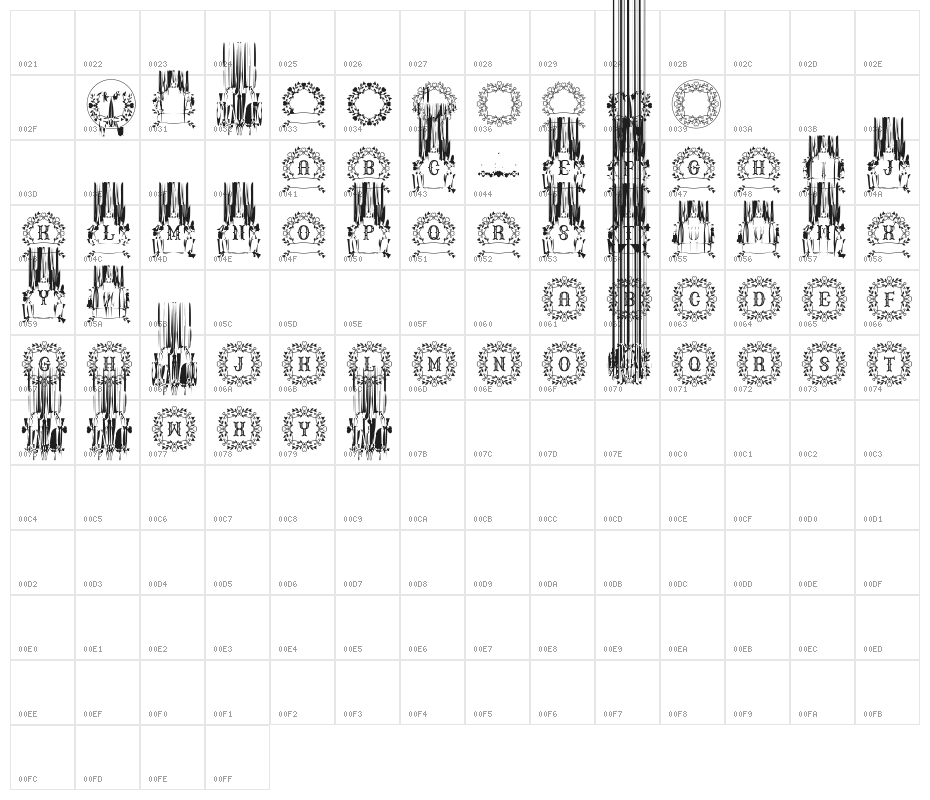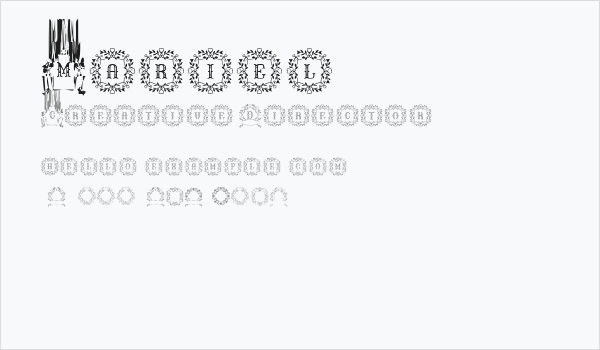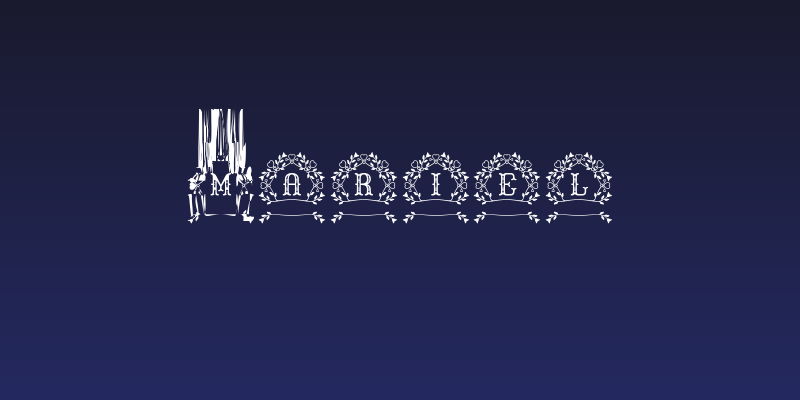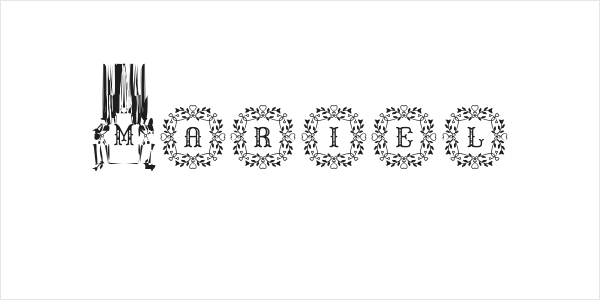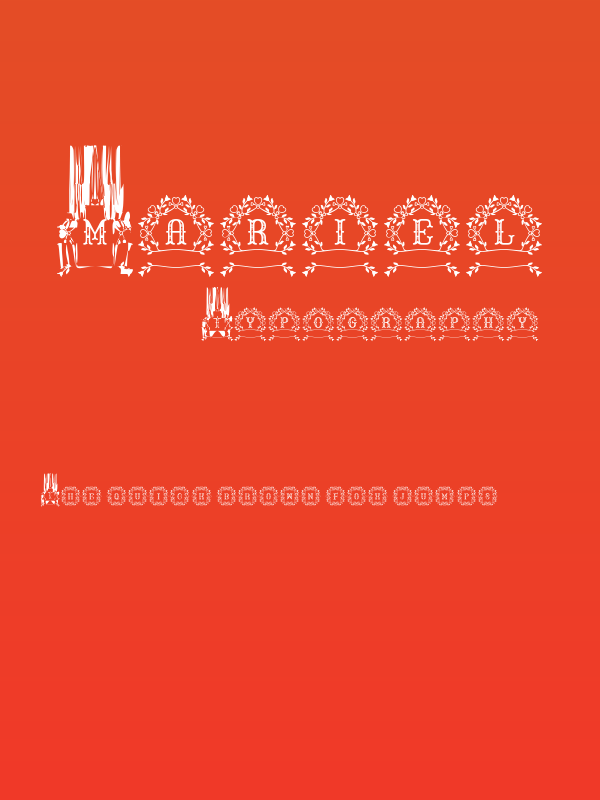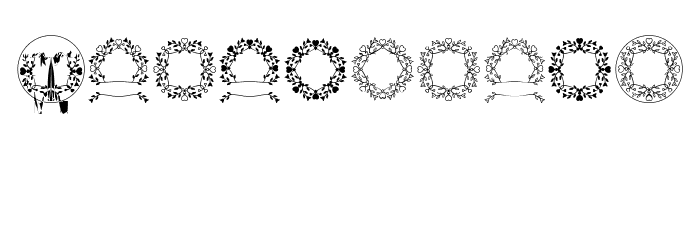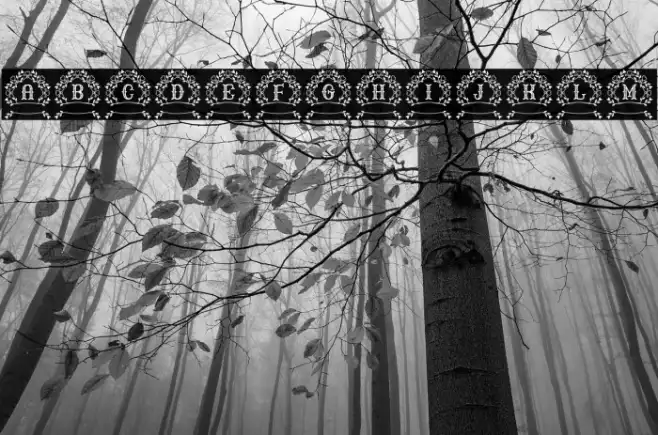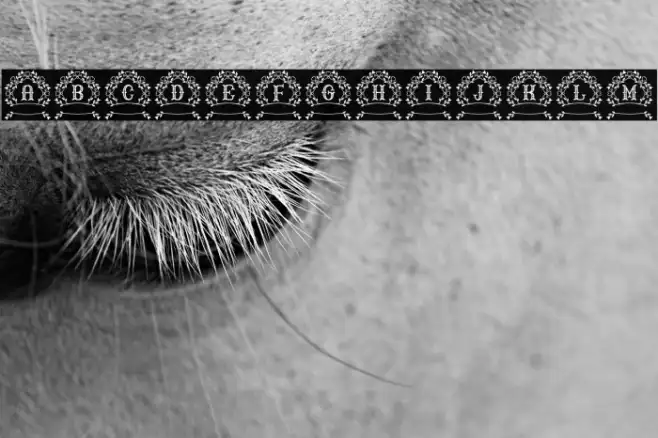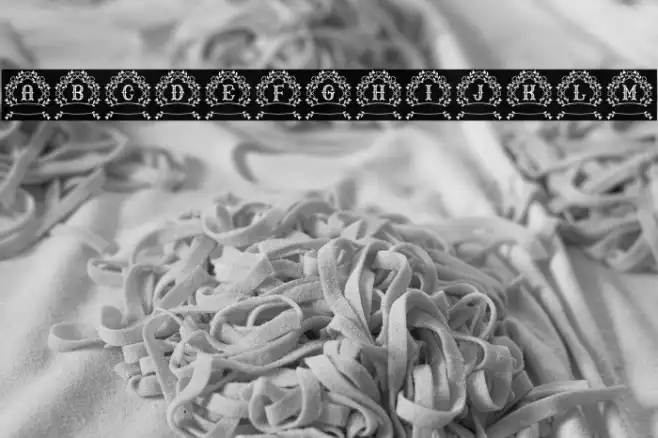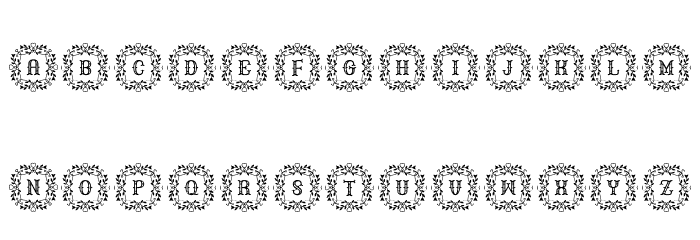
Mariel Font
Mariel Description
This decorative font features uppercase letters encased in intricate floral wreaths, creating a vintage and elegant appearance. Each letter is surrounded by detailed leaf and vine motifs, giving it a unique and ornate style. The characters are bold and stand out against the delicate floral designs, making them suitable for decorative purposes. The overall aesthetic is reminiscent of classic botanical illustrations, offering a timeless and sophisticated look. This font is perfect for projects that require a touch of elegance and nature-inspired beauty.
| Use Case | Logos, Invitations, Decorative headings |
| Proposed Projects | Ideal for wedding invitations, greeting cards, branding for floral shops, or any design needing a vintage botanical theme. |